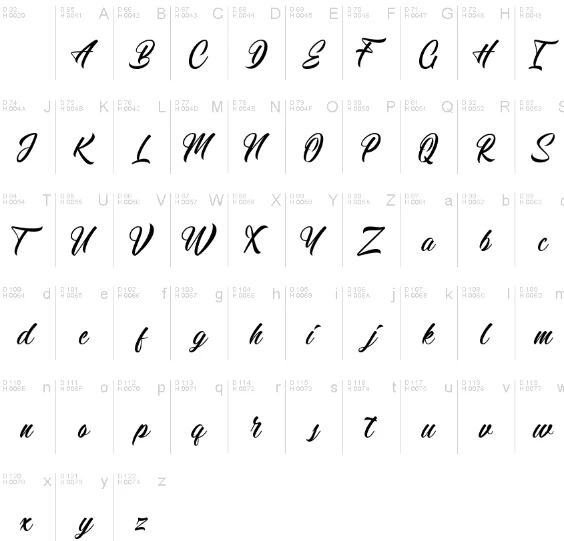
Hello, Yet again, thank you for visiting! Calingham Font is now available! This is a beautiful calligraphy and script font for women. It has fantastic swashes that will give your creations a feminine touch. Dierstudio created it and made it public. Calingham Retroducing is a brush type with a vintage and retro design that adds an exquisite and polished touch to your creations. The engaging Font is available in two formats: TTF and OTF.
Uppercase, lowercase, Numeric, and some Special and Alternate characters are all included in the typeface. The Font is also compatible with Windows, Apple/Mac OS X, Linux, Cricut, Silhouette, and other cutting machines, which is an outstanding quality. Basque, Catalan, Cornish, Croatian, Czech, Danish, Dutch, Embu, English, Esperanto, Estonian, Faroese, Filipino, Finnish, French, Galician, German, Hungarian, and others are among the languages supported by the Font. This stunning typeface also has the benefit of being quickly converted to a web font, which is ideal for many designers
Calingham may be used for various projects, including branding, logos, social media posts, advertisements, product packaging, product designs, labels, posters, photography, t-shirts, watermarks, stationery, and more. This typeface is ideal if you want to incorporate retro emotions into your project.
Calingham Calligraphy Font View
Calingham Calligraphy font Character map